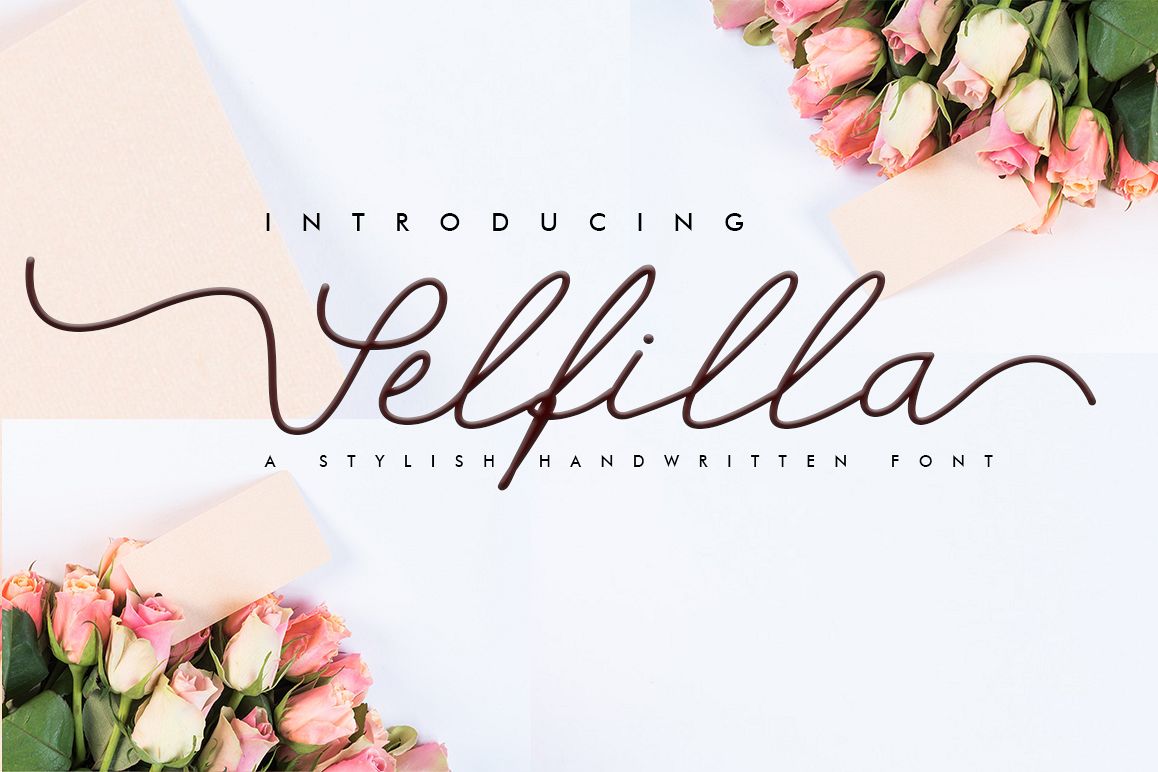
Selfilla
Selfilla is a beautiful font inspired by natural handwriting. This will add an authentic touch to any design project, and opentype fiture ( calt, salt, signature, swash )